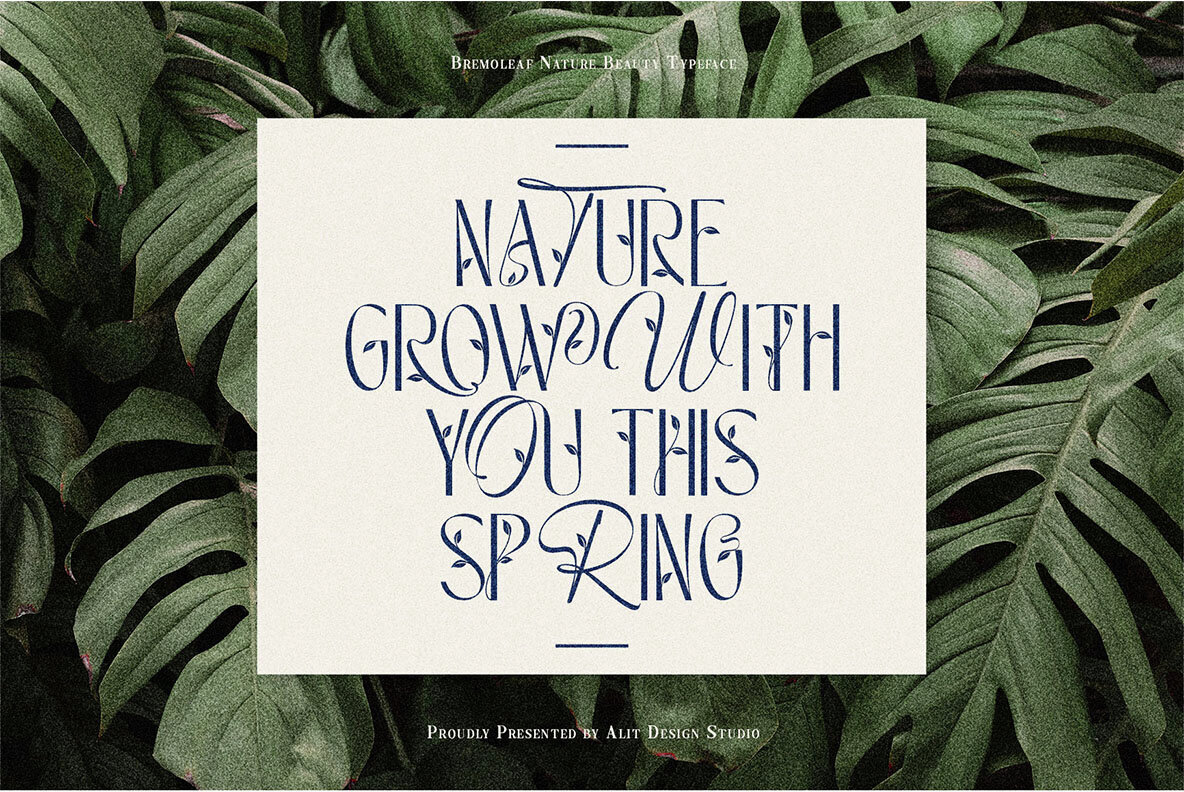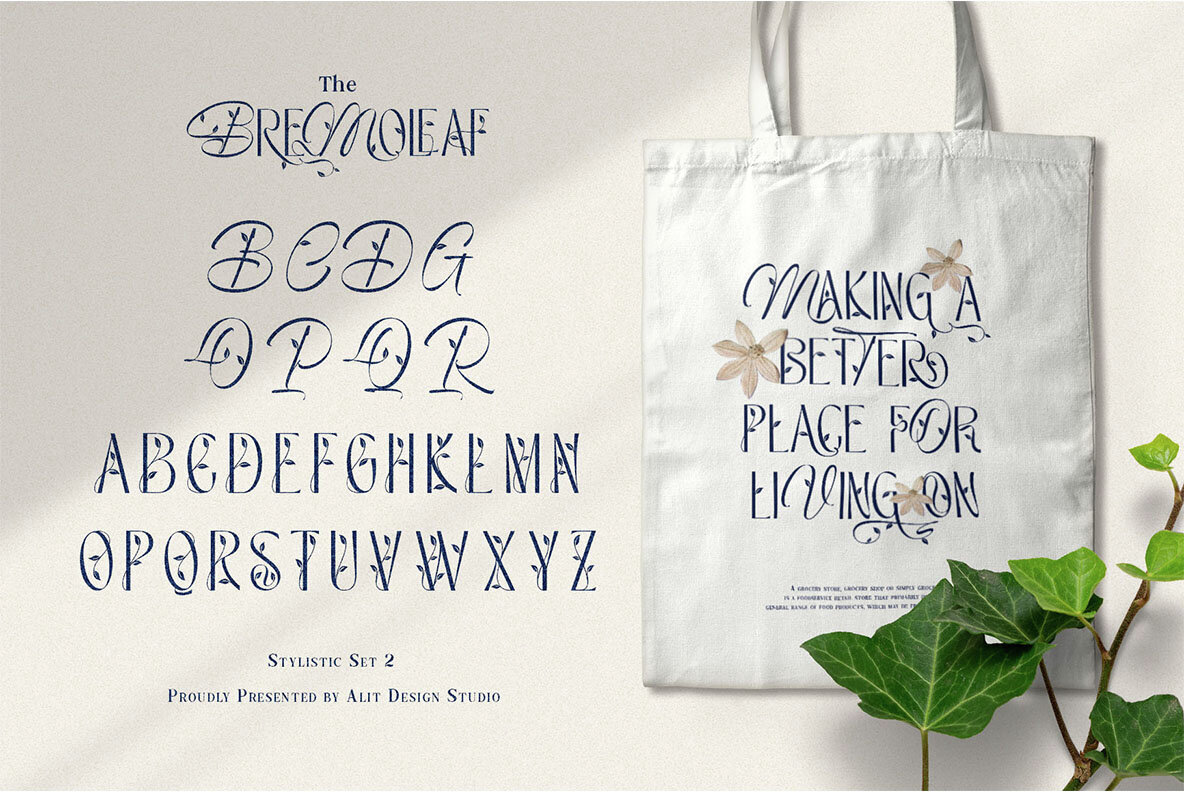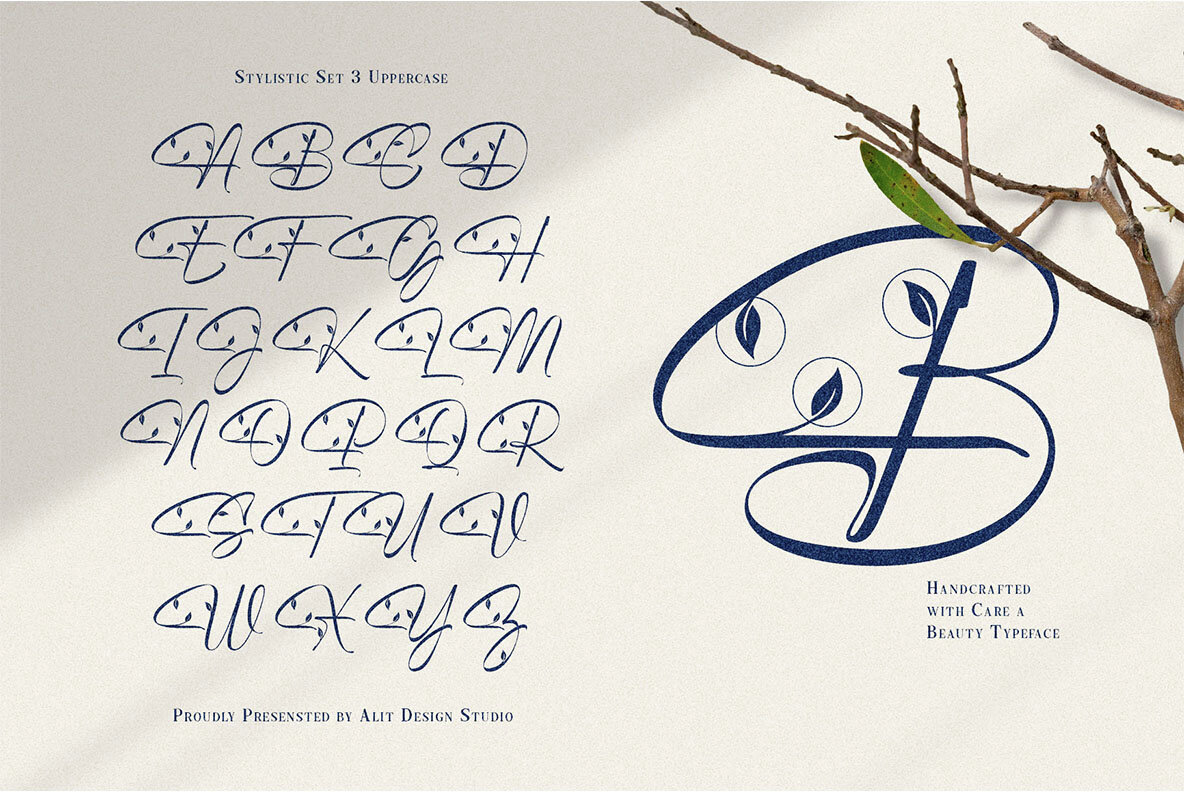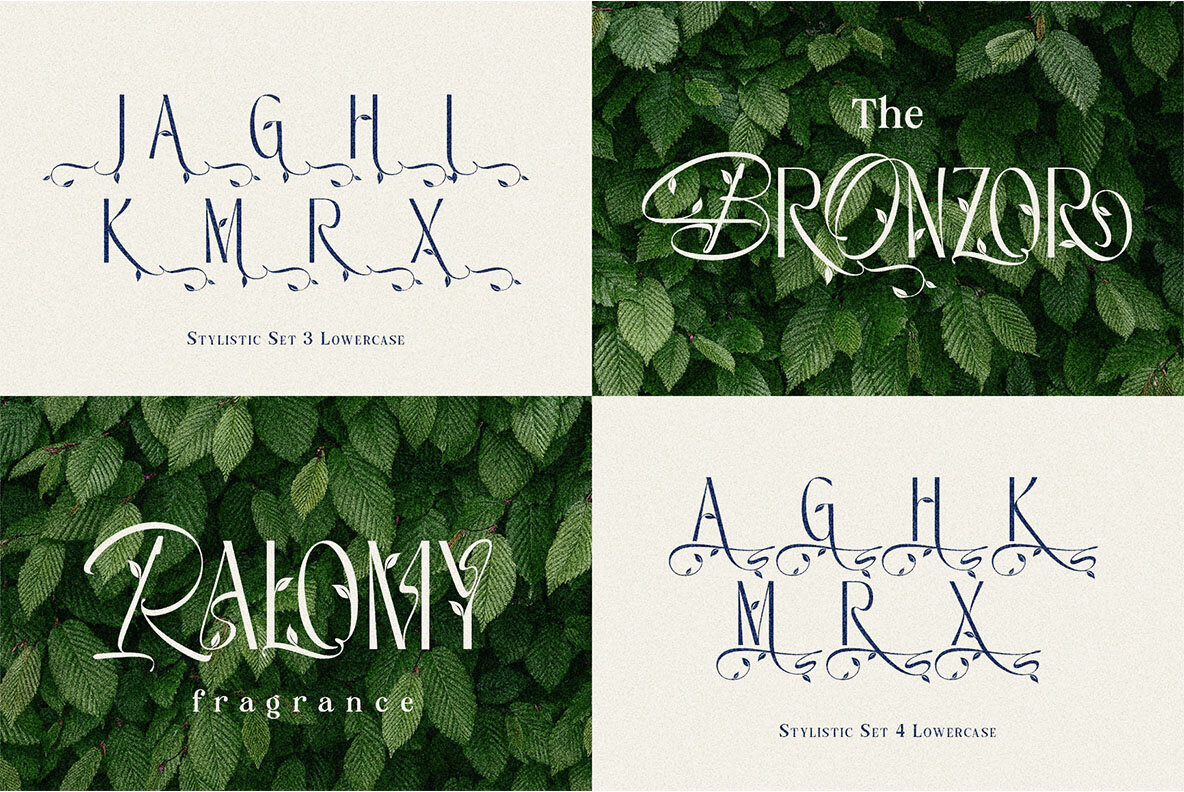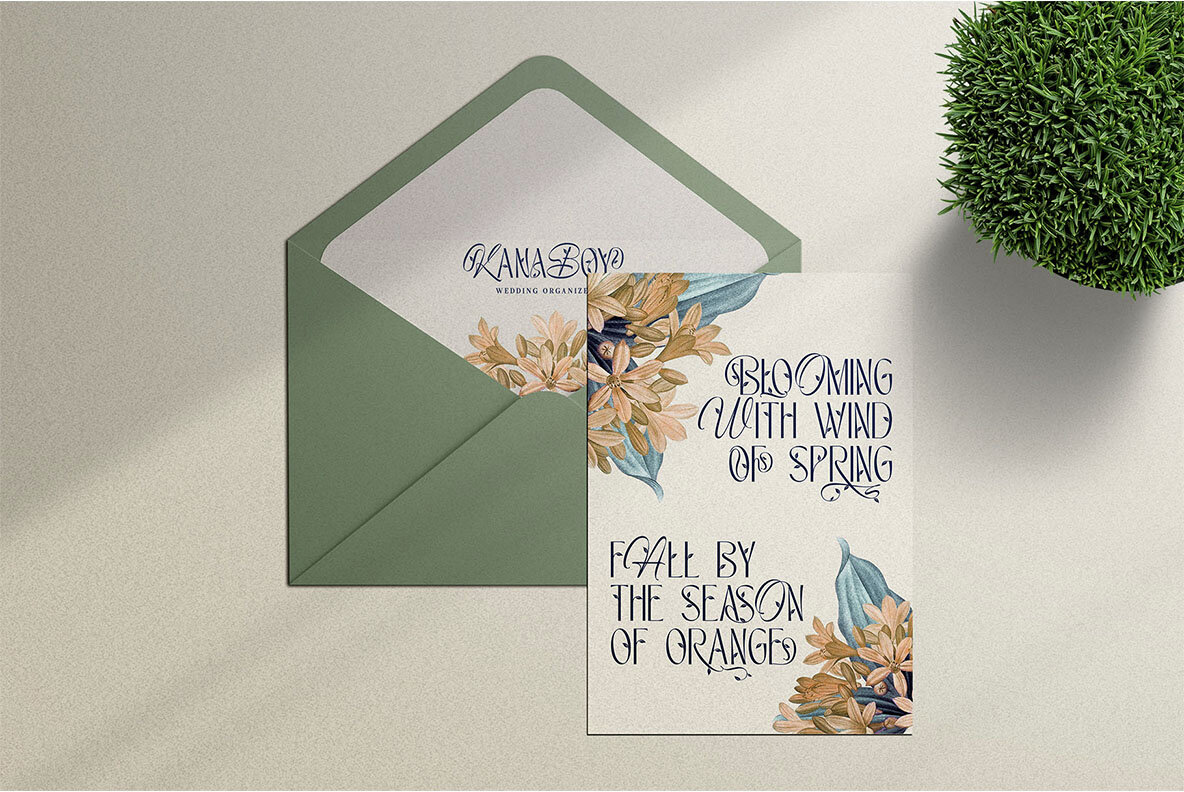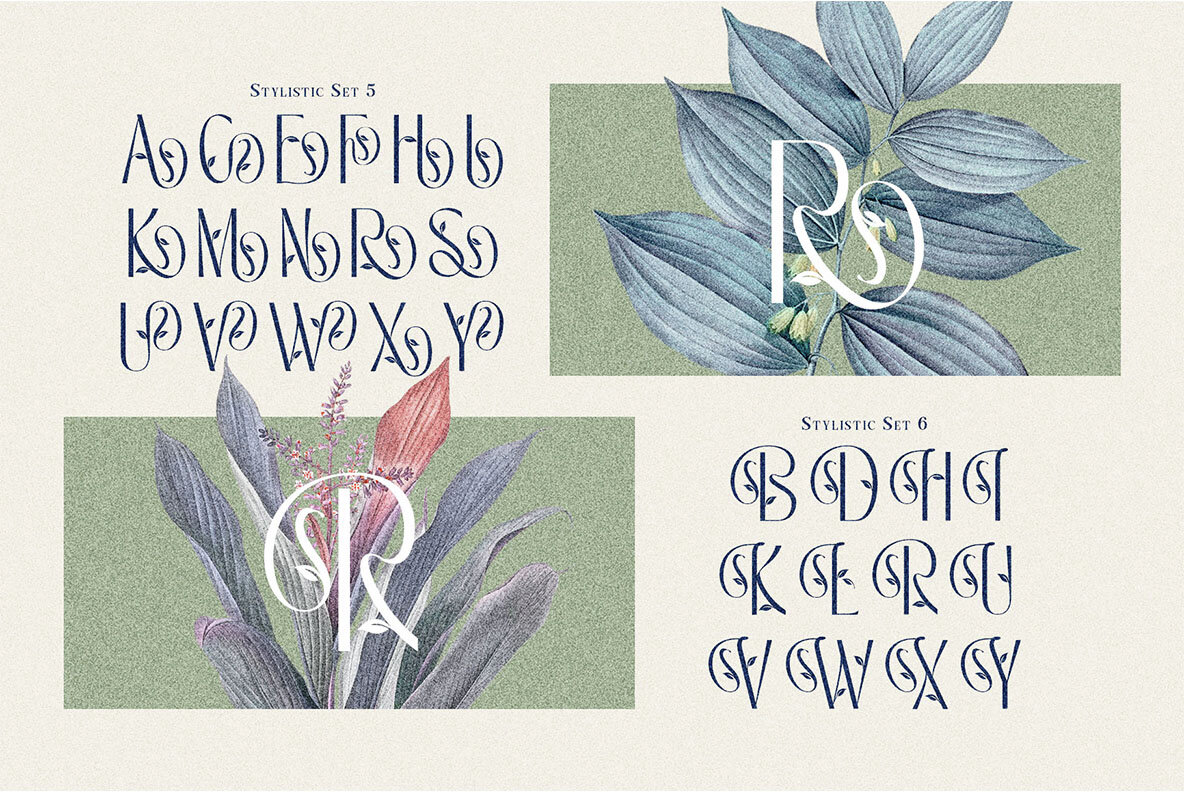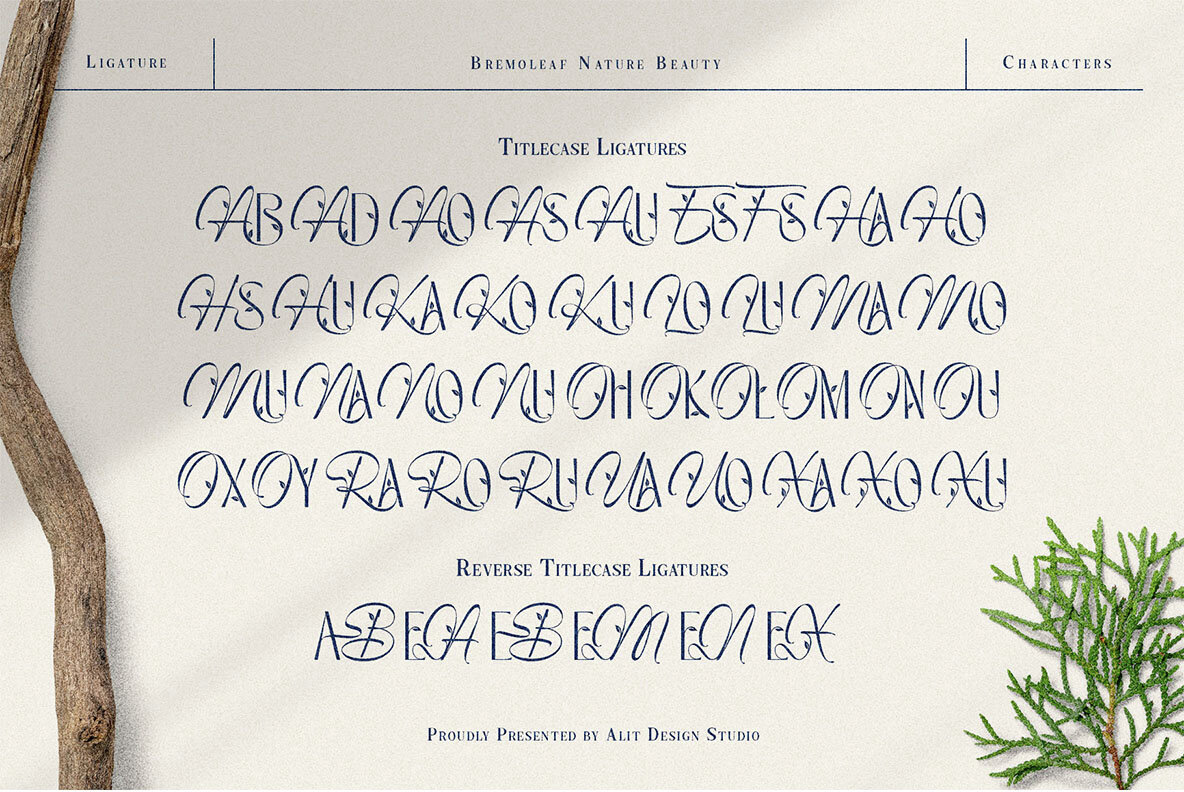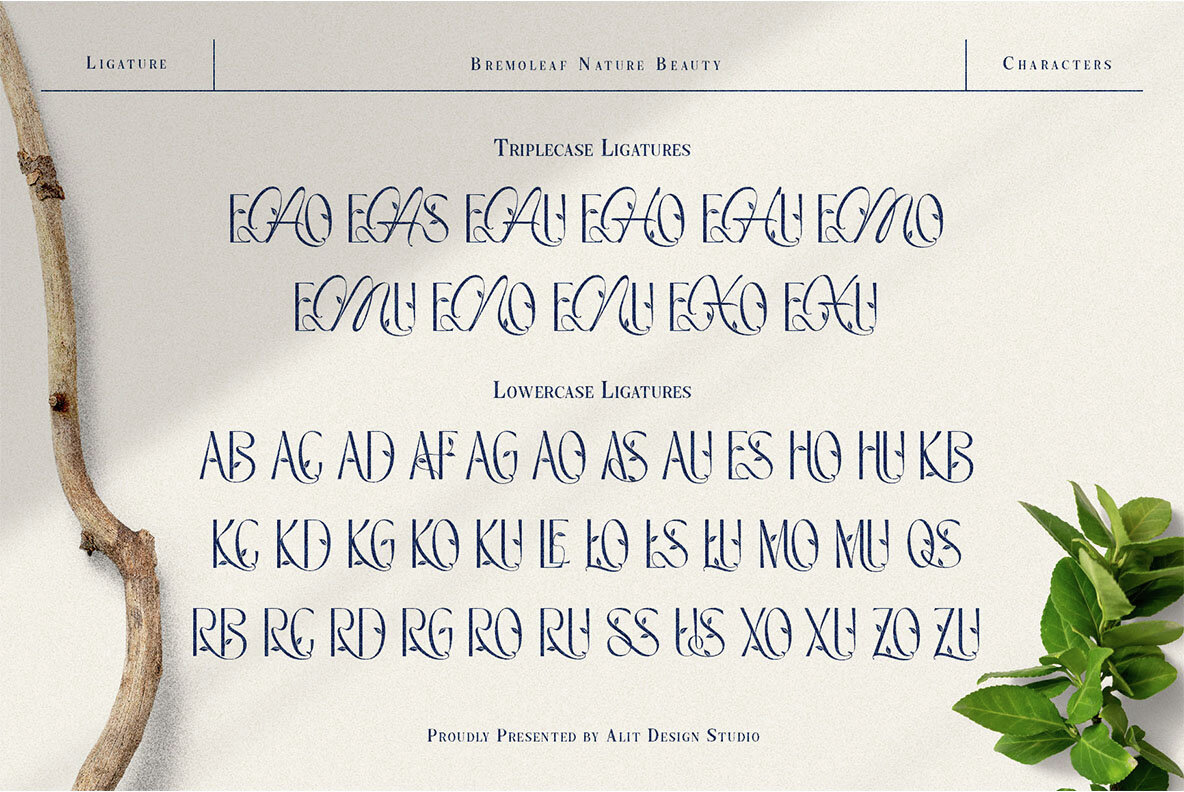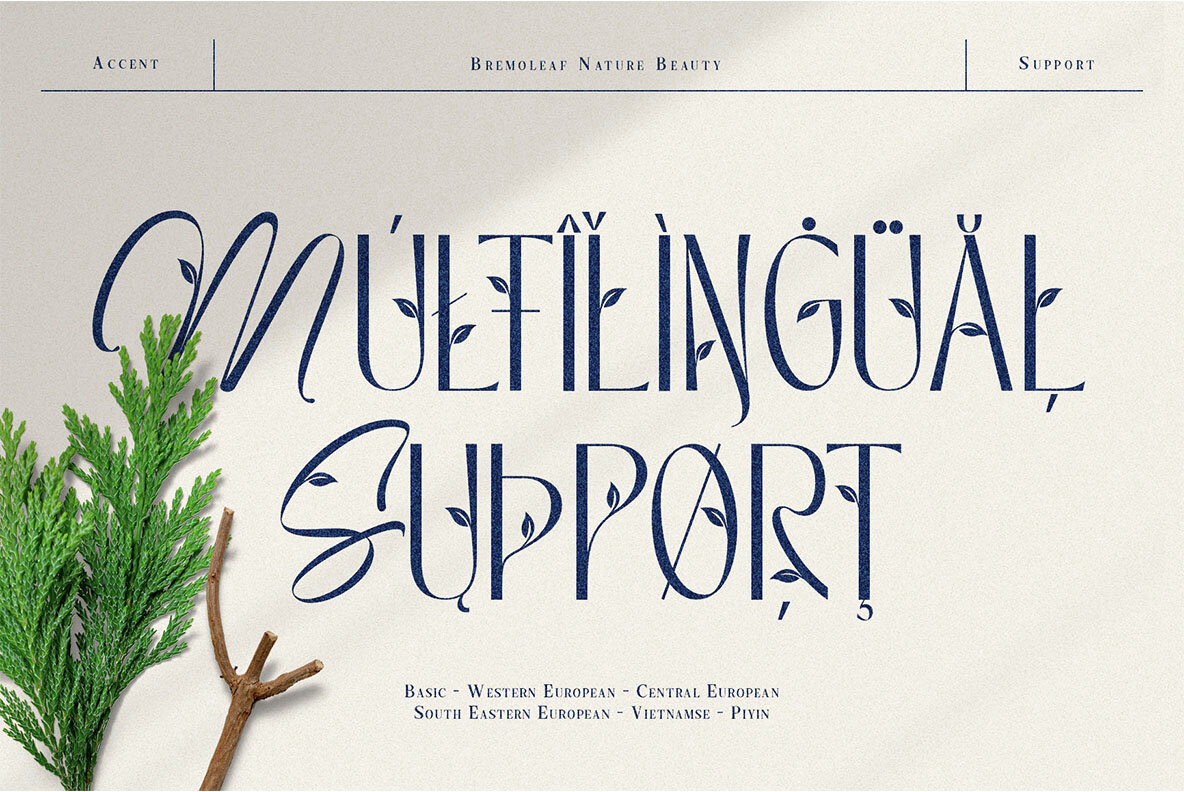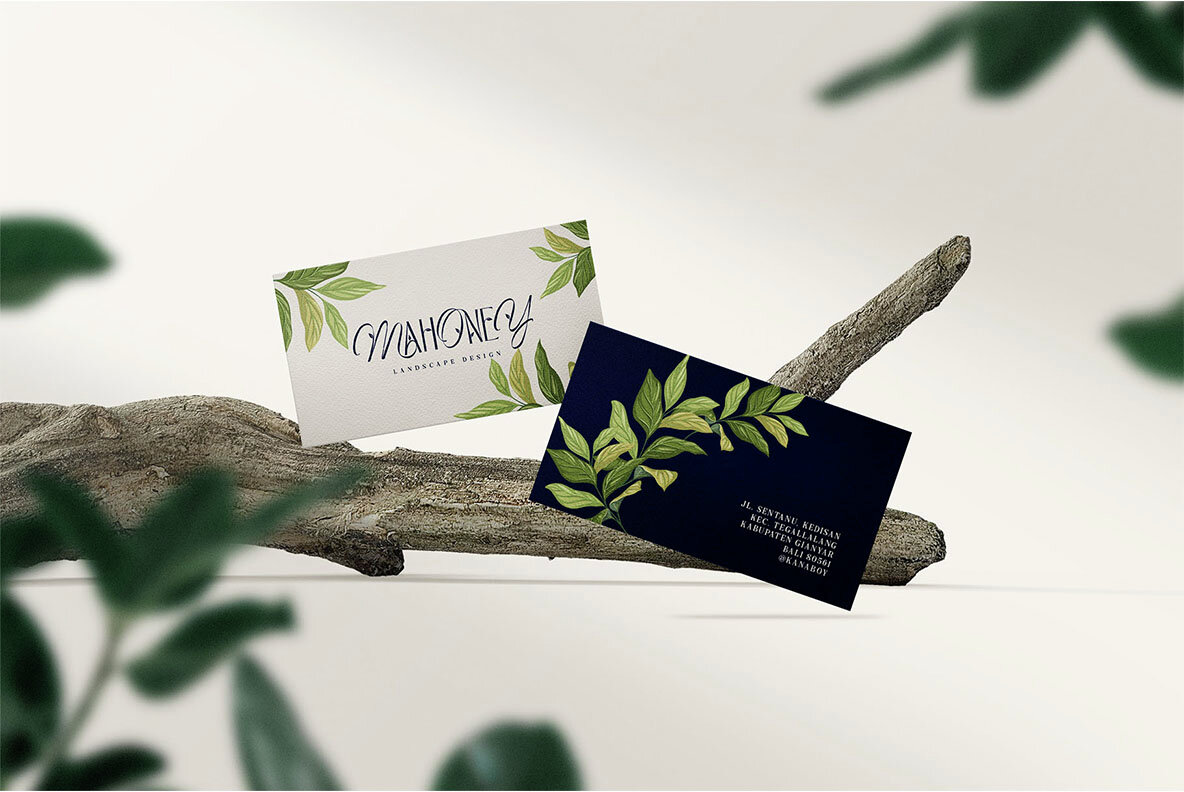
Bremoleaf Font
Bremoleaf Regular
Embrace the beauty of nature with "Bremoleaf," a unique and versatile font that seamlessly blends the organic elegance of leaves with a harmonious mix of sans serif and script elements. This exquisite typeface is more than just a font; it's a work of art that brings the enchantment of nature to your creative projects. The "Bremoleaf" font is a perfect choice for those who seek a harmonious fusion of two distinct typographic styles. It effortlessly combines the sleek and modern characteristics of sans serif letters with the flowing, graceful curves of an elegant script. This harmonious pairing creates a visually captivating and versatile typeface that suits a wide range of design needs. With dynamic ligatures and an extensive selection of alternates, "Bremoleaf" offers endless possibilities to express your creativity. These ligatures and alternatives seamlessly flow, enhancing the readability and aesthetic appeal of your text. Whether you're designing a logo, a wedding invitation, a branding project, or any other creative endeavor, "Bremoleaf" has you covered. "Bremoleaf" boasts a wide range of characters and symbols, providing support for a staggering 708 characters. This inclusive font enables you to create content in various languages and styles with ease. Plus, it includes PUA (Private Use Area) Unicode, ensuring that you can access all its special characters and unique features effortlessly. "Bremoleaf" is not bound by language or borders. It offers comprehensive multilingual support, making it the perfect choice for projects that target global audiences. From English to Spanish, French to Vietnamse, this font will help you convey your message beautifully and effectively. Experience the enchantment of "Bremoleaf" and elevate your design projects to new heights. This nature-inspired font brings the organic beauty of leaves to your creations, offering an irresistible combination of style and functionality. With "Bremoleaf," your designs will flourish like never before.Introducing "Bremoleaf" - The Nature-Inspired Font